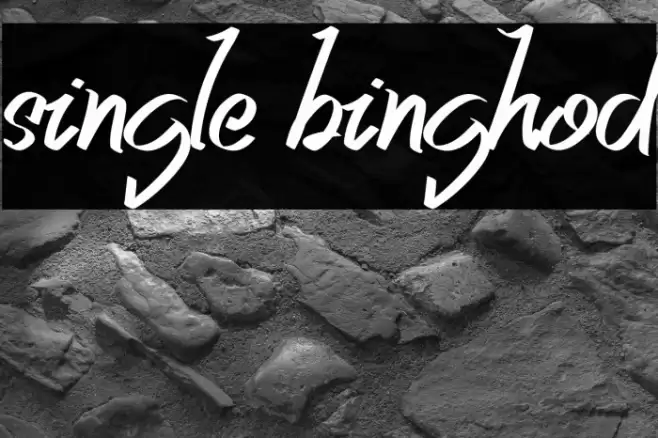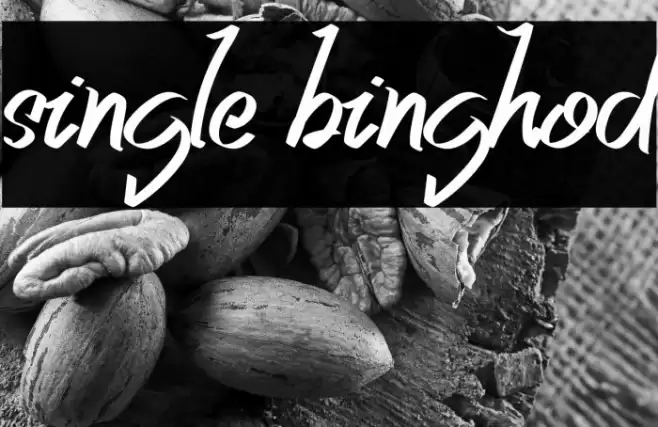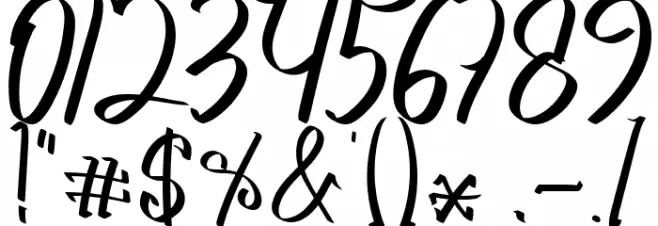
single binghod Font
single binghod Description
This font exudes a dynamic and expressive style, characterized by its fluid, cursive strokes that mimic the elegance of handwritten script. The uppercase letters are bold and sweeping, with a distinct flair that adds a touch of sophistication. The lowercase letters maintain a consistent flow, enhancing readability while retaining an artistic edge. Numbers and special characters are crafted with the same attention to detail, ensuring uniformity across all elements. The overall design is both modern and timeless, making it versatile for various applications.
A dynamic, cursive script font with bold, sweeping strokes from Regular fonts.